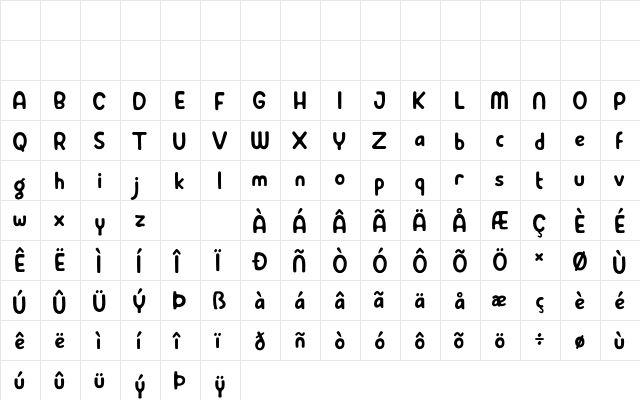
Belligan Regular
| Designer | Lia Ari Wijayanti |
Design Context for Belligan Typeface
Belligan is a composed and adaptable typeface that performs quietly and consistently across a wide range of design contexts.